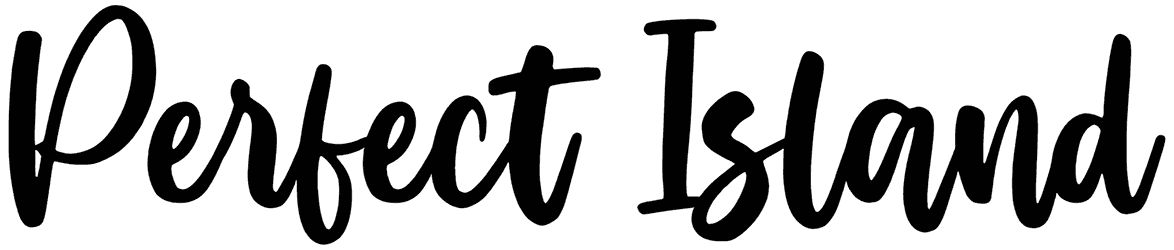
Perfect Island Font
Making charming outcomes is not a difficult task anymore with the help of a cursive script font such as Perfect Island, which comes with accurate and well-rounded curves.
By using this island font in your posters, logos, business cards, brochures, or packaging, you can add your personalized touch to them. Needless to say that it can give your projects a sense of professionalism, delicacy, dynamism, or vivacity.